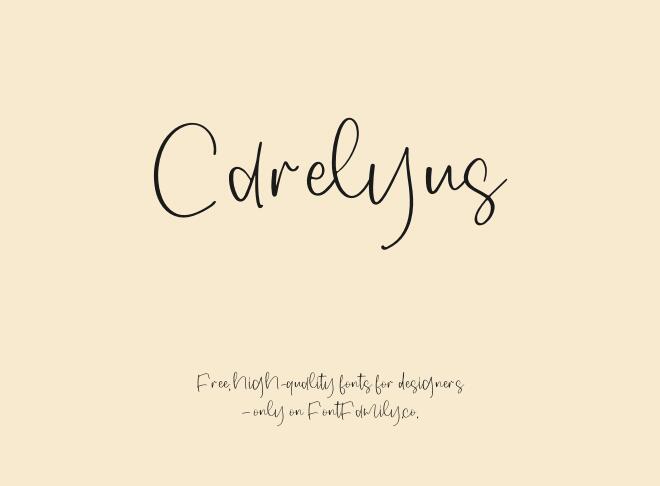
Carelyus Font
Carelyus Font is a contemporary handwritten script font with an elegant and modern touch. Designed by Type Foundry Co., it elegantly combines a smooth, flowing style with a subtle touch of sophistication. Its stylish yet readable characters make it perfect for a wide range of design projects, from wedding invitations and greeting cards to branding, logo design, and more. The font features a set of beautiful swashes and alternates that add a unique touch to any design. Compared to other fonts, Carelyus stands out for its versatility and elegance, making it a great choice for designers who want to add a touch of class to their work. This open-source font is free to download and use for both personal and commercial projects.